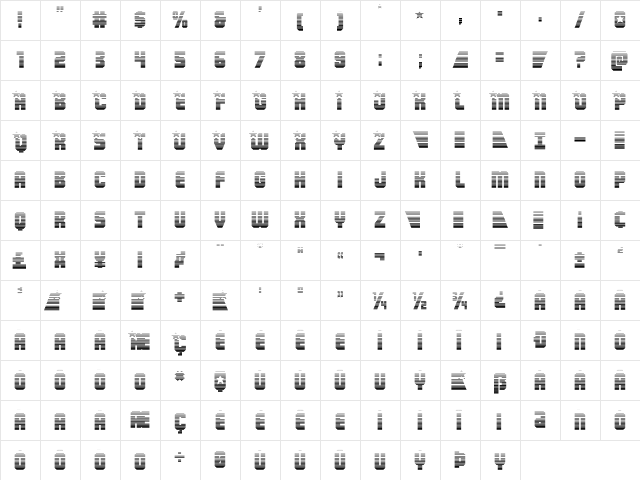
Army Rangers Gradient Regular
Design Context for Army Rangers Gradient Typeface
Army Rangers Gradient draws on military and industrial lettering traditions, with forms that communicate strength and precision.
Designed for tactical branding, military-inspired apparel, action game UI, and utility-focused signage.
Pro Tip: Use Army Rangers Gradient at medium-to-large sizes where its utilitarian structure can be appreciated — the character detail gets lost at small sizes.